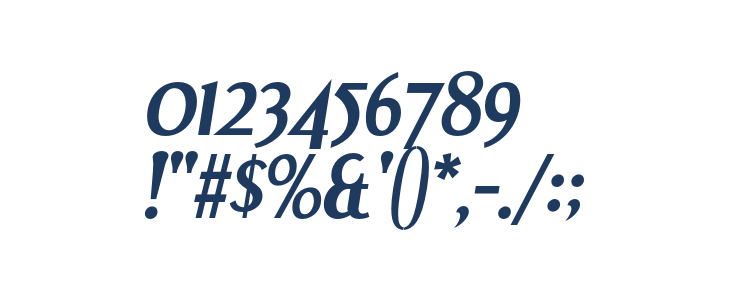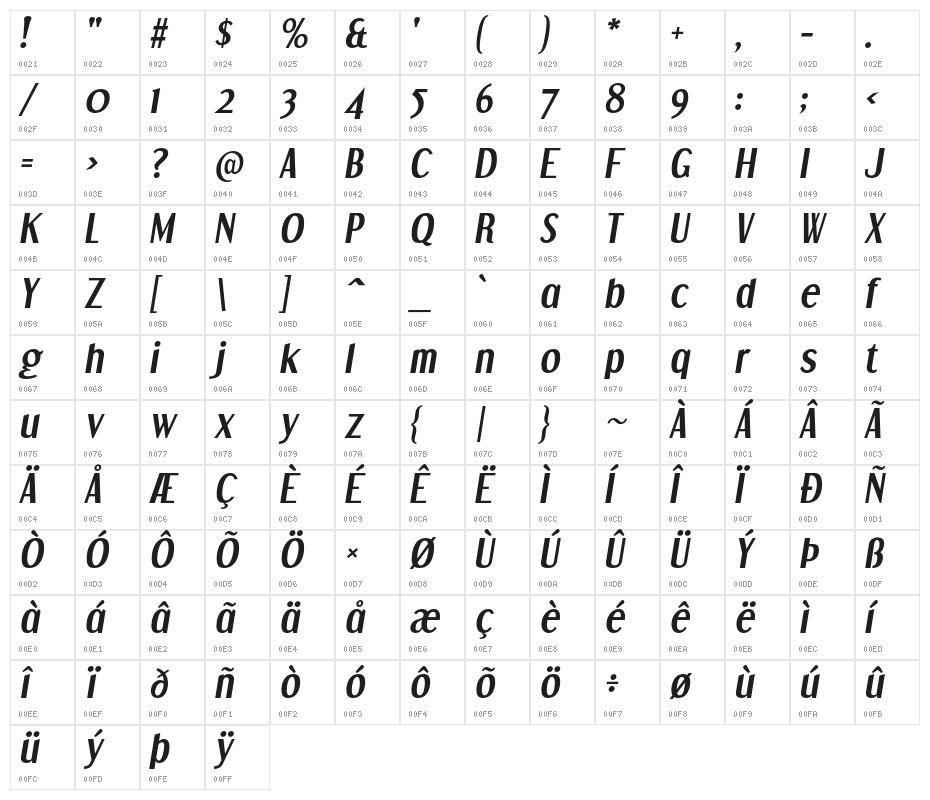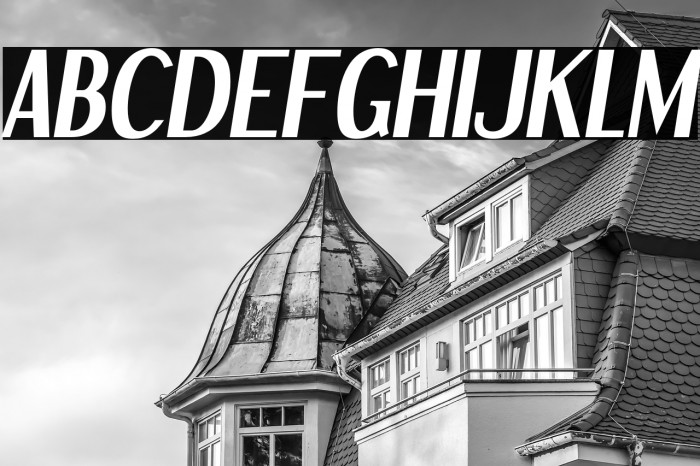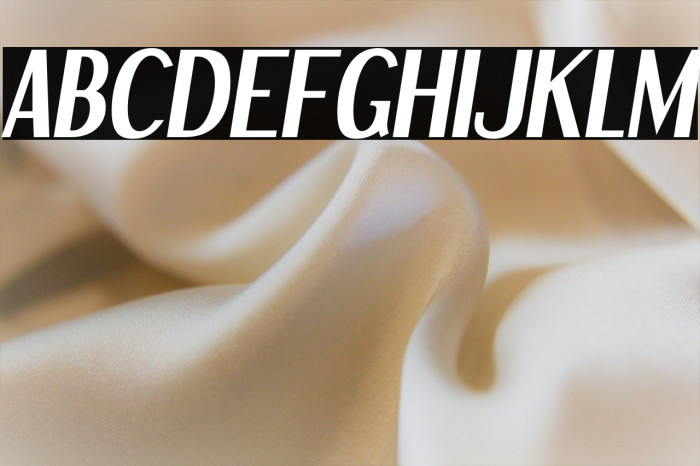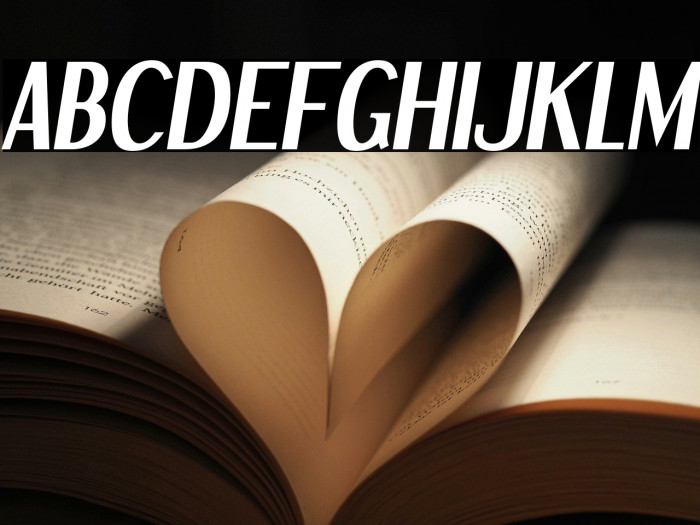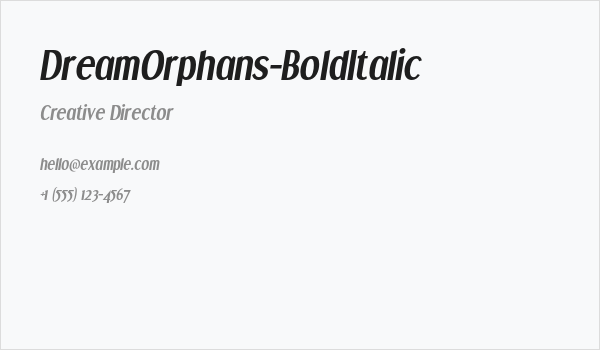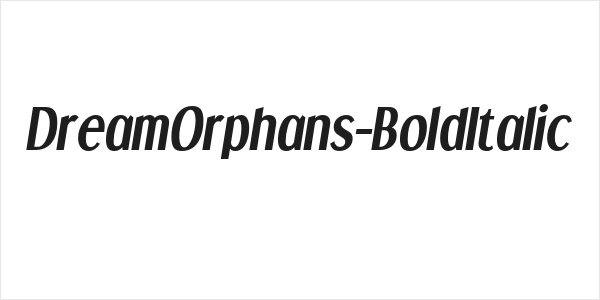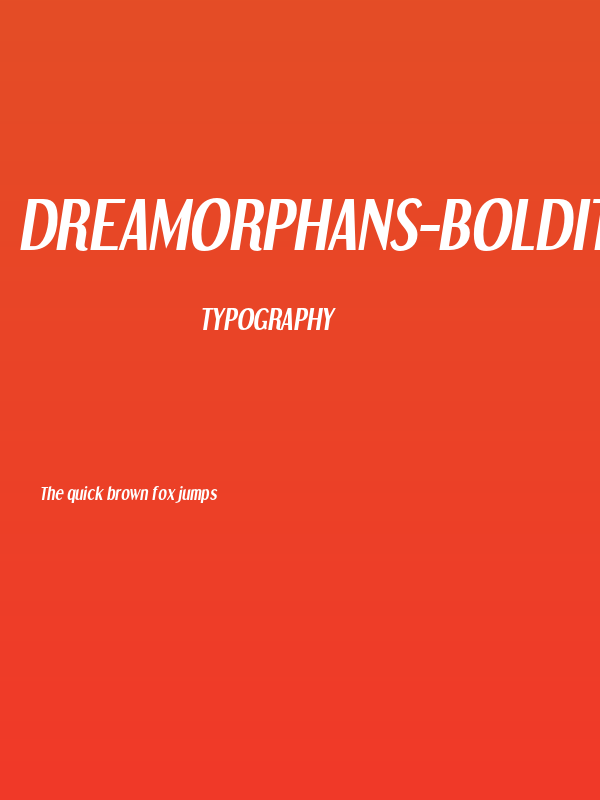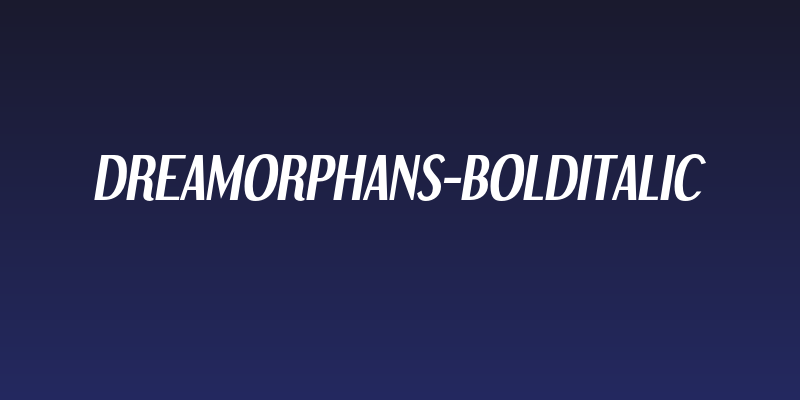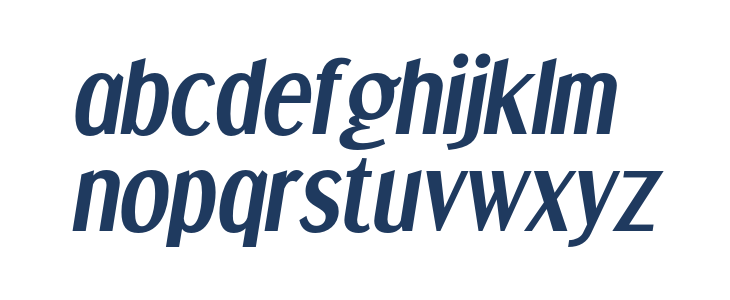
DreamOrphans-BoldItalic Font
DreamOrphans-BoldItalic Description
This font features a bold and italicized style, characterized by its dynamic and forward-leaning posture. The letters are well-defined with a consistent stroke width, providing a strong visual impact. The uppercase letters are tall and commanding, while the lowercase letters maintain a balanced and cohesive appearance. The numerals are clear and legible, complementing the overall design. Special characters are included, adding versatility to the font's usage. The font's modern aesthetic makes it suitable for a variety of applications, from headlines to branding projects.
| Proposed Projects | Ideal for branding, advertising, headlines, and editorial design. |